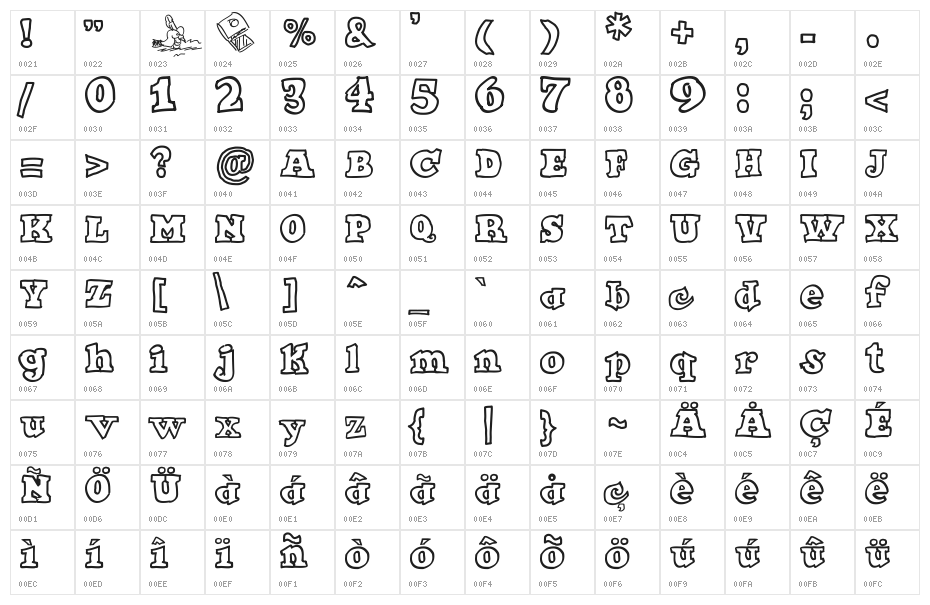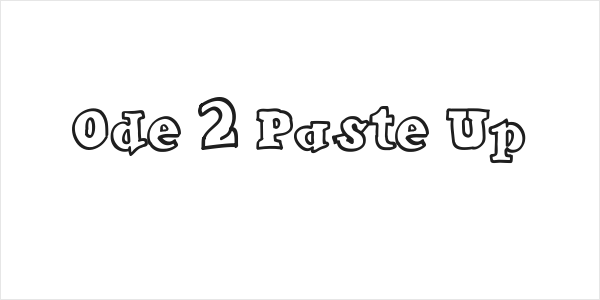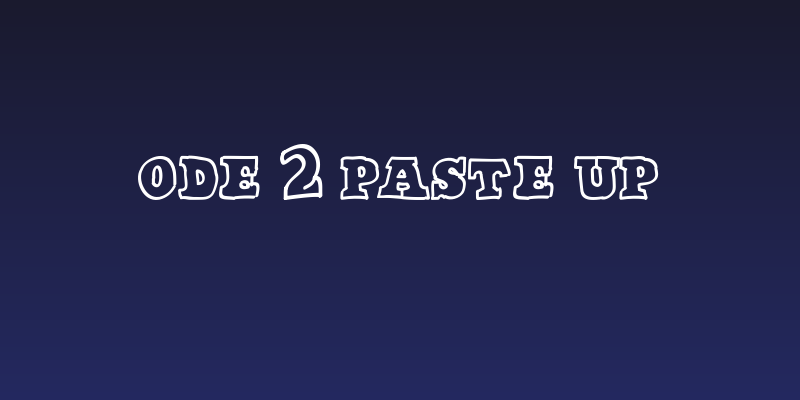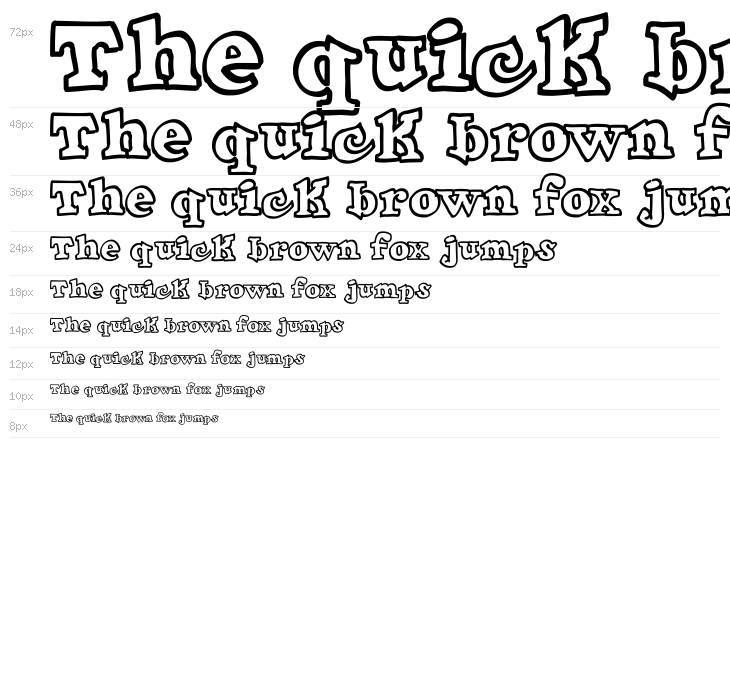
Ode 2 Paste Up Font
Ode 2 Paste Up Description
This font features a bold and playful style with a hand-drawn, cartoonish appearance. Each character is outlined, giving it a distinct, three-dimensional look. The letters are slightly irregular, adding to the whimsical and informal feel. The font includes both uppercase and lowercase letters, numbers, and a variety of special characters. The overall design is reminiscent of comic book lettering, making it ideal for projects that require a fun and engaging visual element.
| Overall Style | Playful, Cartoonish, Whimsical |
| Use Case | Headlines, Posters, Branding |
| Proposed Projects | Ideal for comic books, children's books, playful posters, and creative branding. |